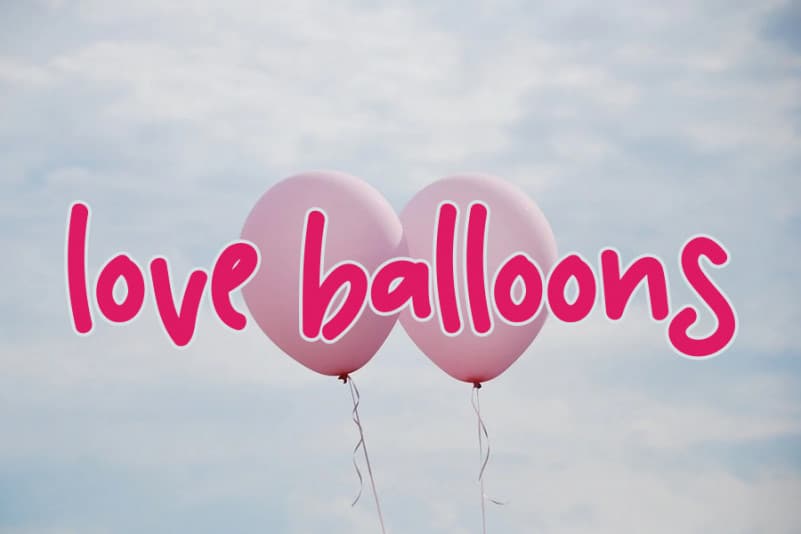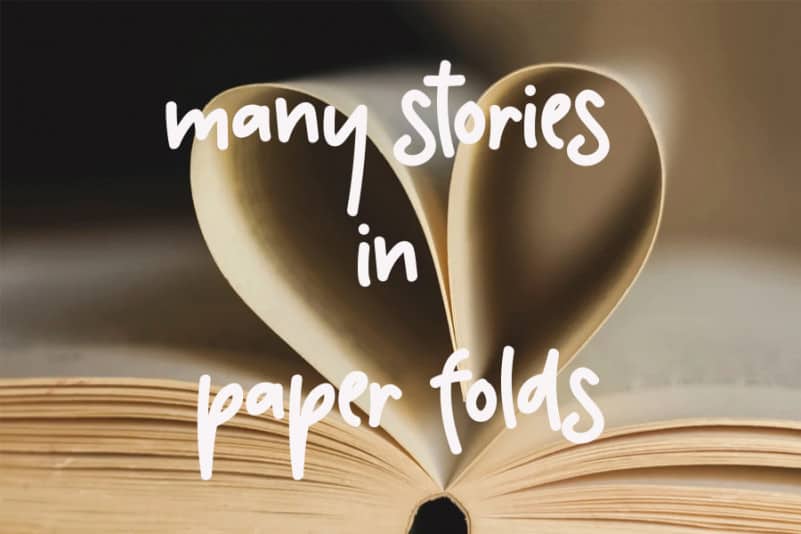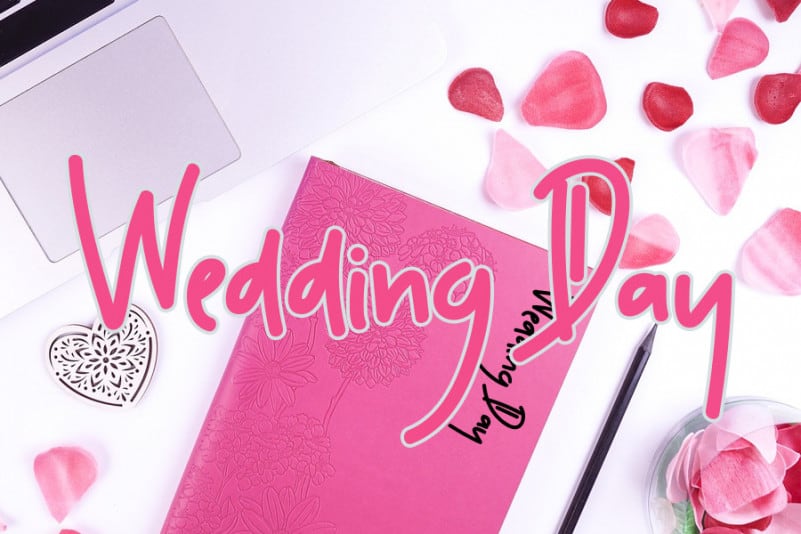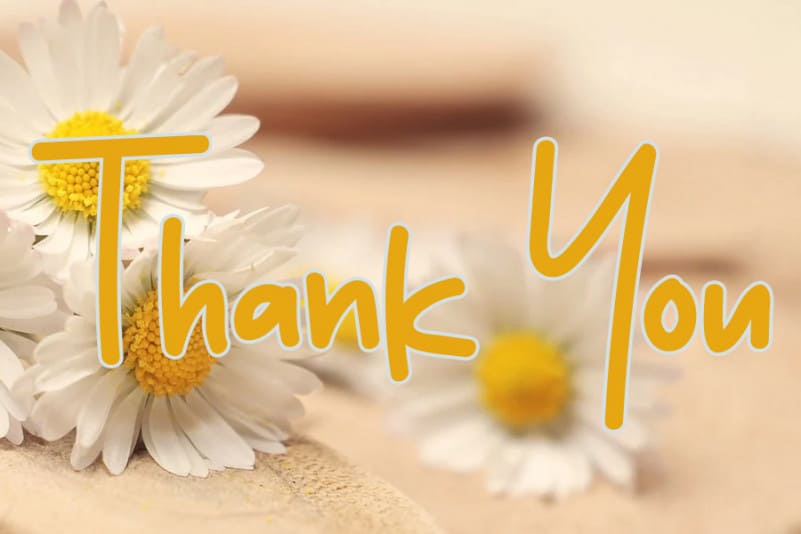
Love Day Handwritten Font
Love Day Handwritten Font is a sweet and quirky handwritten font. Dainty and joyful, this font will be ideal for writing wedding invitations, cards or any other design that may need a romantic, personalized touch!
Love Day Handwritten Font is a very talented product for you to use,
Latest letters that can be used for various products, invitations, wall hangings, weddings, and more.